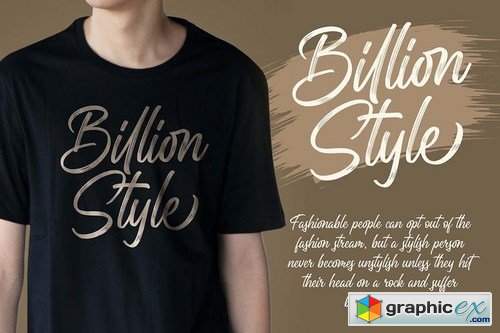
Rough Letterline Authentic Brush Font
Introducing of our new product the name is Rough Letterline Authentic Brush Font. Rough Letterline inspired by brush calligraphy style this font is a fun theme very good for display, tshirt design, craft, quote sign, logotype and etc